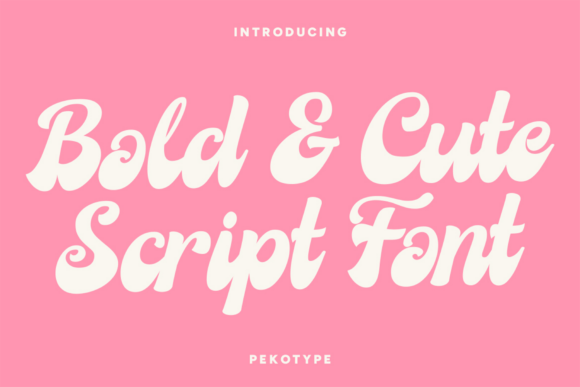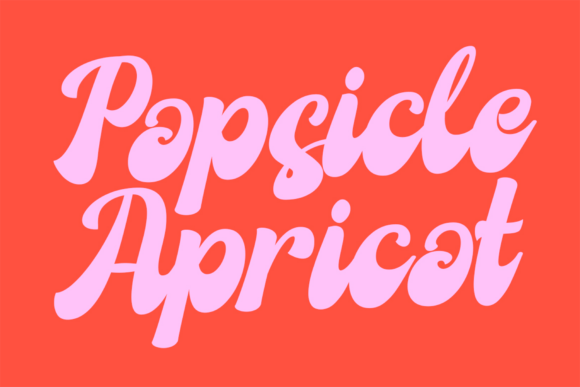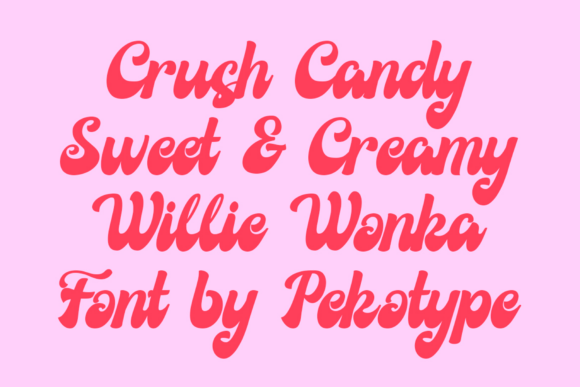
Introduction to Pickmin Font
Have you ever found yourself browsing through a beautiful cafe or a quirky boutique, only to be captivated by the whimsical designs and fonts that seem to jump off the walls? For designers, moments like these spark creativity and inspire new ideas. Today, we’re excited to share with you a font that embodies the same playful spirit – the Pickmin Font!
This charming script font is more than just a pretty face; it’s a high-quality design resource that can elevate your creative projects to the next level. With its bold strokes, smooth curves, and delightful personality, the Pickmin Font is perfect for branding, logos, merchandise, social media, and more. Whether you’re working on a free download project or a paid design, this font is sure to add a touch of sweetness and charm to your work.
What sets the Pickmin Font apart is its versatility and ease of use. With a transparent background and a wide range of styles to choose from, you can customize it to fit your unique design needs. Download the Pickmin Font today and discover a world of creative possibilities!
Key Features of Pickmin Font
- High quality, detailed design for creative projects, including illustrations, logos, and graphics.
- Perfect for use in digital art, graphic design, and other creative projects where a unique, high-quality font is required.
Honest Review: Pickmin Font
I recently had the chance to work with the Pickmin Font for a creative project, and I must say it was a great experience. As a designer, I’m always on the lookout for high-quality fonts that can elevate my designs. The Pickmin Font definitely fits the bill.
One of the things that stood out to me about the Pickmin Font was its versatility. It’s available for free download, making it a fantastic resource for designers who are working on a budget. The font also features a transparent background, which makes it easy to integrate into any design. ✨
- ✨ Easy to use and customize
- ✨ High-quality design
- ✨ Versatile and adaptable
However, there are a few limitations to keep in mind. The font may not be suitable for complex or large-scale designs, and it can be a bit tricky to use in certain situations. ⚠️
Overall, I was really impressed with the Pickmin Font. It’s a great resource for designers who are looking for a high-quality, free font that can add some personality to their creative projects. I would definitely recommend it to anyone looking for a reliable design resource.
Use the Pickmin Font to create custom titles and headings for your project. Experiment with different font sizes and colors to add visual interest. Combine the Pickmin Font with other design elements to create a unique and eye-catching design.
The Pickmin Font is perfect for use in logos, branding materials, and marketing materials. Its transparent background makes it easy to use in graphics and overlays. It’s also a great choice for use in digital products, such as ebooks and presentations.